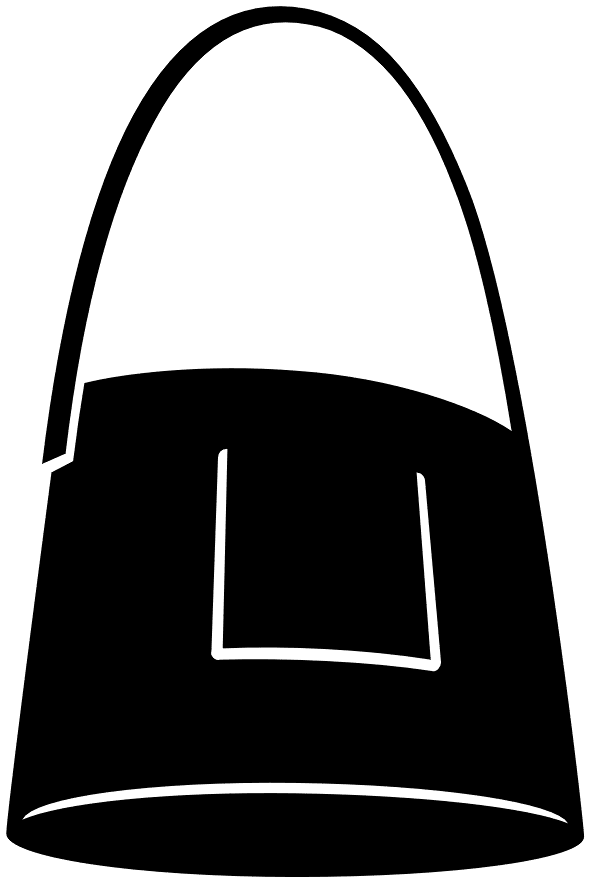
Lustre
Non-alphabetic typeface consisting of 38 silhouette and outline images of women’s footwear and accessories. Designed by Yana Kutyina. Released by ParaType in 2008.